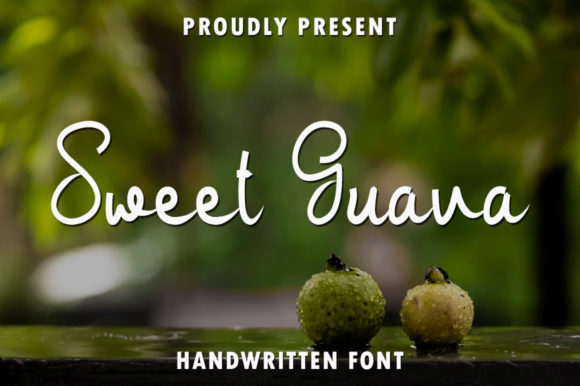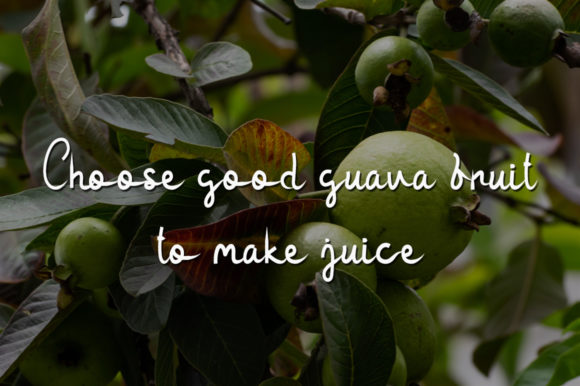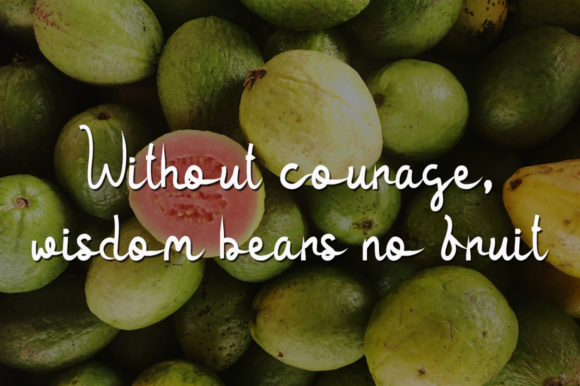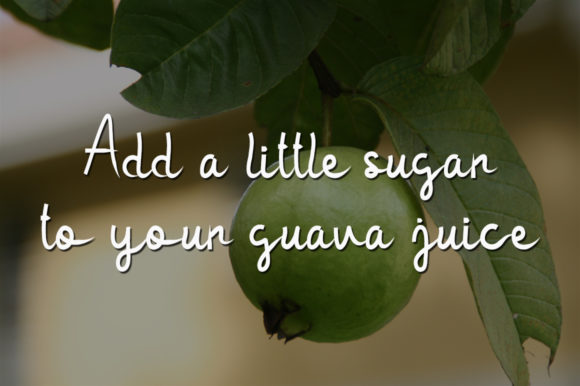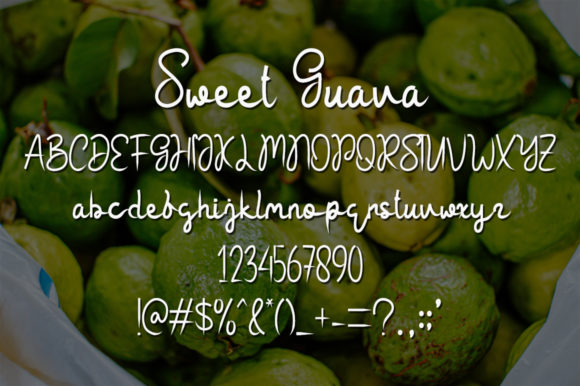
Sweet Guava Font
About Sweet Guava Font
“Sweet Guava” is a simple and flowing handwritten font that can take your creative ideas to the next level. With its smooth and natural strokes, this font adds a touch of elegance and charm to your designs.
The simplicity of “Sweet Guava” is its strength, allowing your creative ideas to shine through without overwhelming the overall aesthetic. The letters flow seamlessly, creating a harmonious and organic look that is both pleasing to the eye and easy to read.
Whether you’re designing logos, creating invitations, crafting social media posts, or working on any other creative project, “Sweet Guava” can elevate your designs with its versatile style. Its handwritten appearance adds a personal and authentic touch, making your work feel more approachable and relatable.
The flowing nature of “Sweet Guava” lends itself well to a variety of design themes and purposes. It can be used for both formal and casual projects, adapting effortlessly to different contexts. From wedding stationery and branding materials to blog headers and product packaging, this font brings a touch of sophistication and simplicity to your creations.
The clean and legible letterforms of “Sweet Guava” ensure that your message is easily communicated. Each letter is carefully crafted to maintain readability, making it suitable for both small and large-scale applications. Whether it’s used as the main headline or as supporting text, “Sweet Guava” adds a touch of elegance and clarity to your designs.
This font is versatile and works well across various mediums, including digital and print. It can be used in graphic design software to create digital artwork, as well as for hand-lettering and calligraphy projects using traditional tools. Its smooth and flowing strokes make it a joy to work with, whether on screen or on paper.
In summary, “Sweet Guava” is a simple and flowing handwritten font that has the potential to elevate your creative ideas. Its elegance and versatility make it suitable for a wide range of design projects, adding a touch of charm and authenticity. Let “Sweet Guava” bring your ideas to life and enhance the visual impact of your designs.